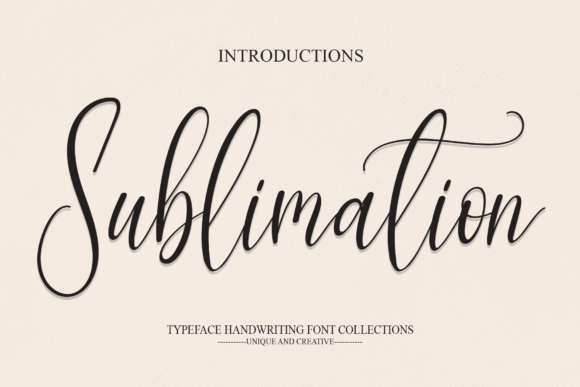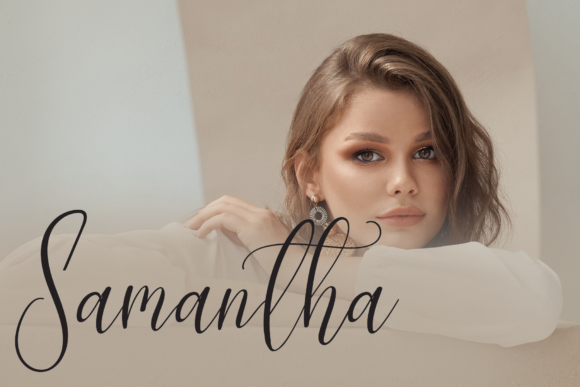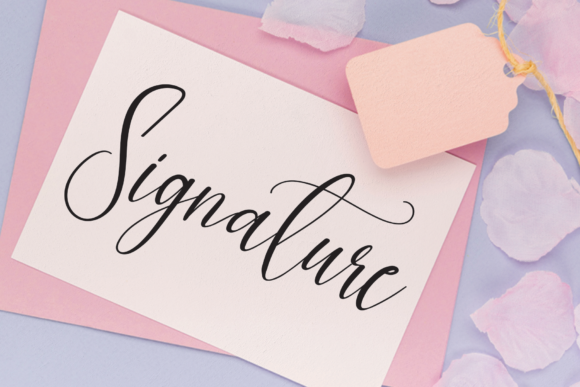
Sublimation is a typeface handwriting unique and creative font. Its latest style letters are perfect for wall displays, wedding invitations, social media post logos, advertisements, product packaging, product designs, labels, photography, watermarks, invitations, stationery, and any project that requires taste handwriting.